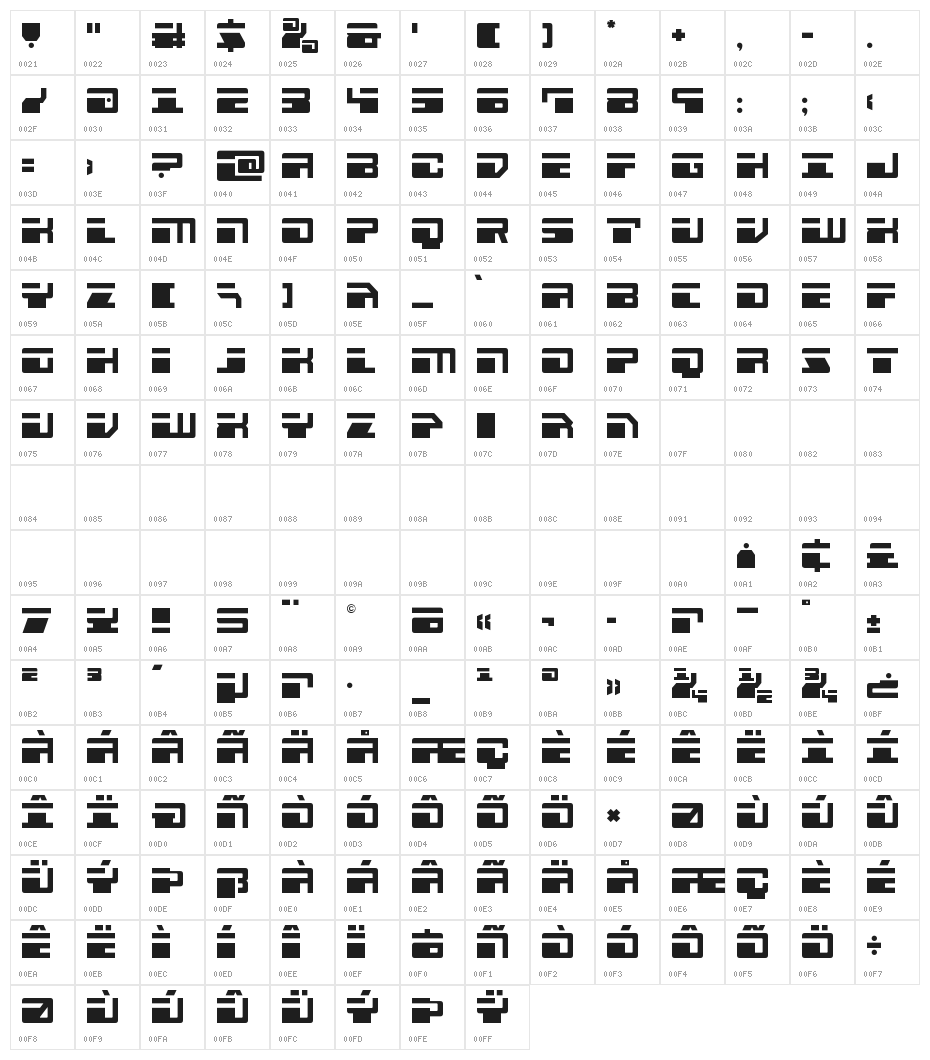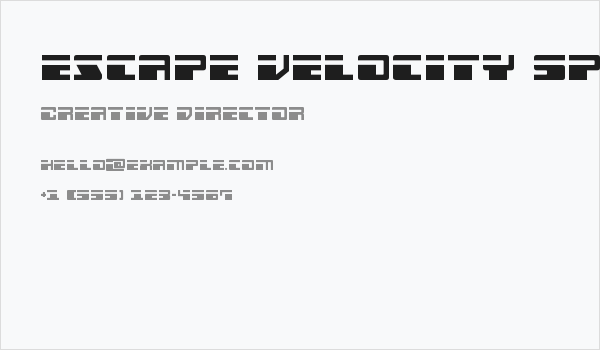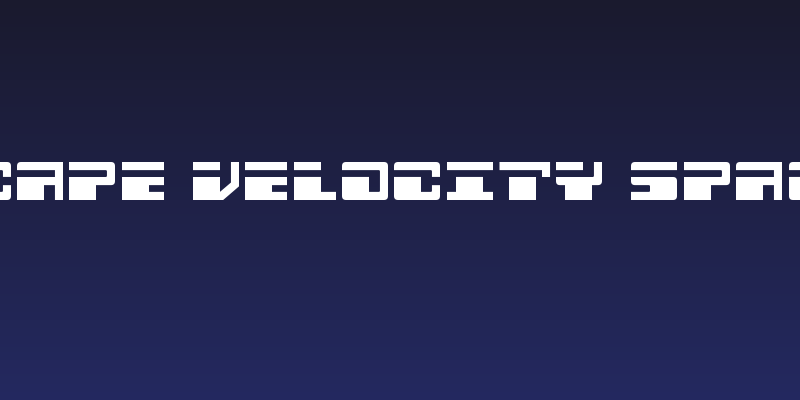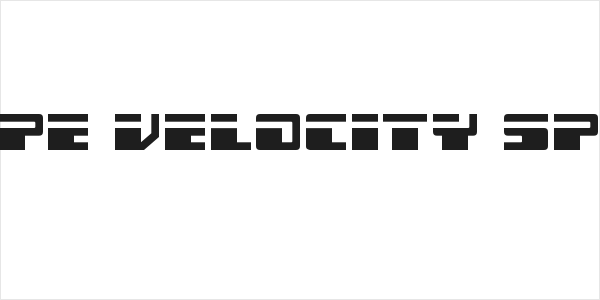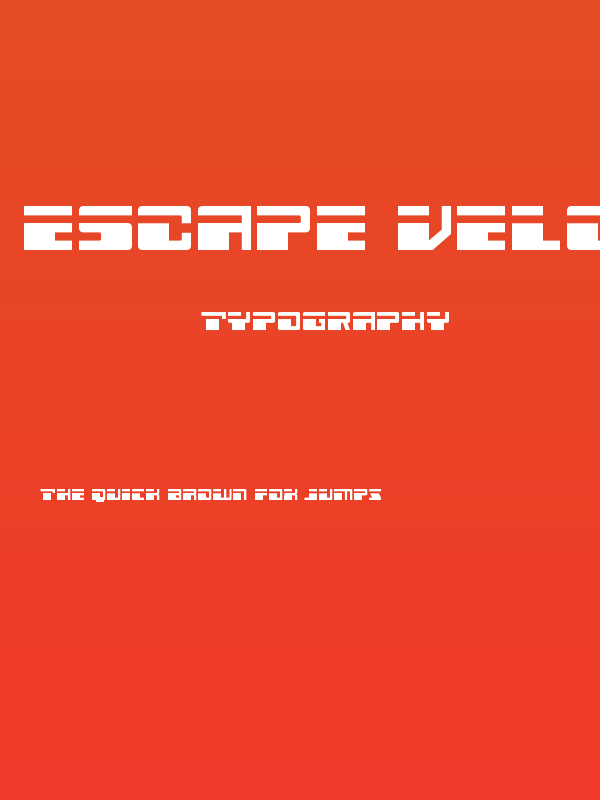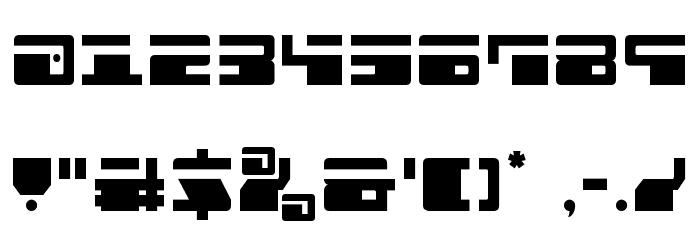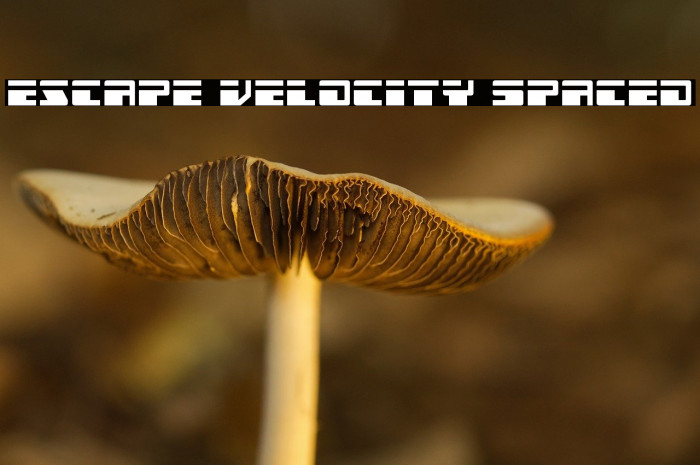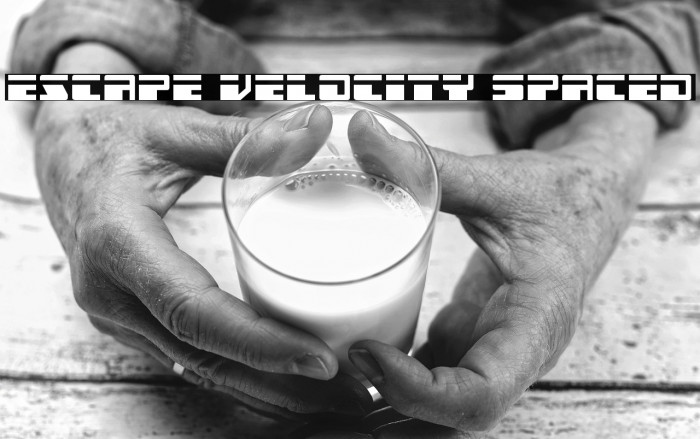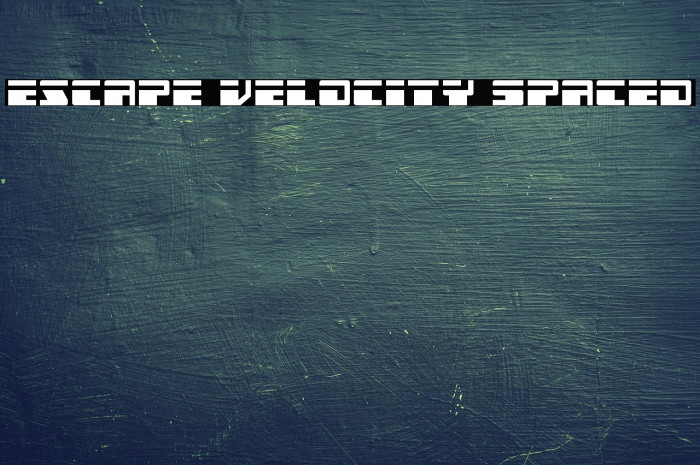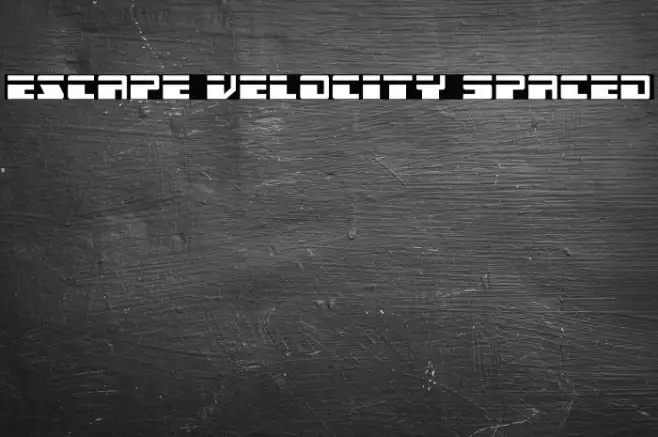
Escape Velocity Spaced Font
Escape Velocity Spaced Description
This font exhibits a bold, futuristic style with geometric shapes and sharp angles. The characters are constructed with a blocky, stencil-like appearance, giving it a distinct, modern edge. The uppercase and lowercase letters maintain a consistent height, emphasizing uniformity and balance. Numbers and special characters follow the same design principles, ensuring a cohesive look across all elements. The font's design is reminiscent of digital or sci-fi themes, making it ideal for projects that require a strong, impactful visual presence.